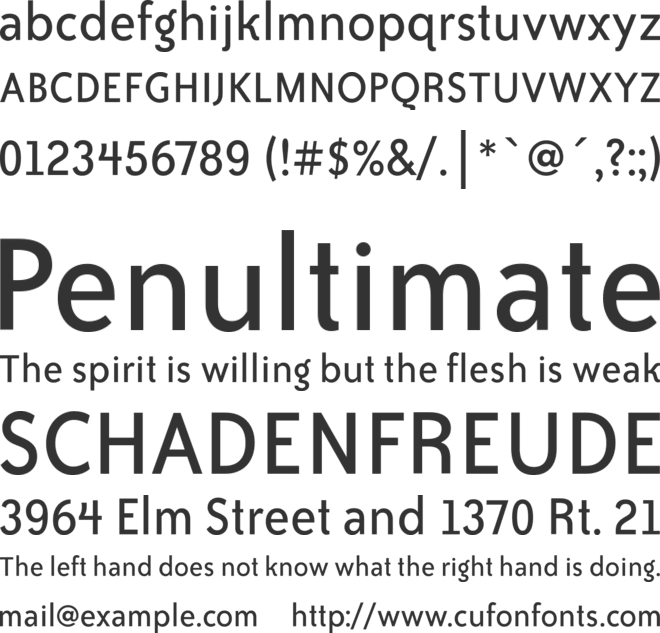
Bailey Sans ITC Com Font Family
Kevin Bailey
ITC Bailey Sans is the first typeface family created by Kevin Bailey, a graphic designer in Dallas, Texas.
ITC Bailey Sans font is available in four weights: book, book italic, bold and bold italic and even has a companion serif display font, ITC Bailey Quad Bold.